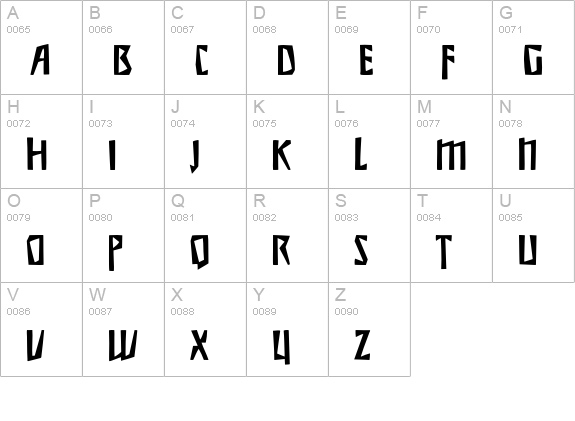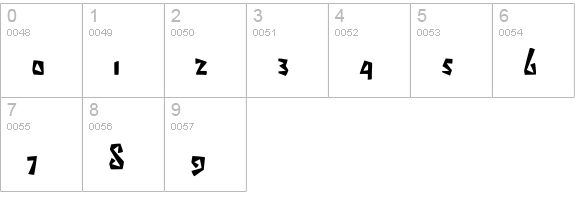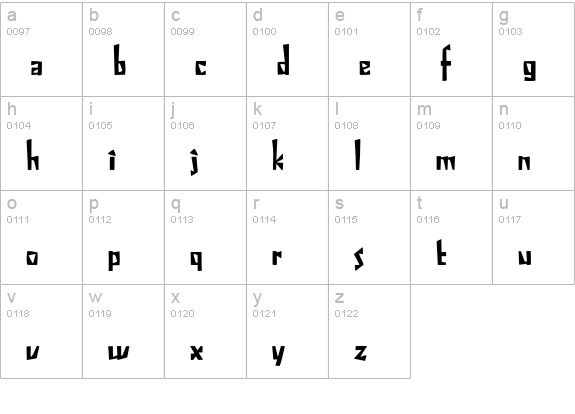
P22Preissig-Scrape is a captivating and distinctive font that exudes a sense of rawness and authenticity. Crafted with meticulous attention to detail, this font is inspired by the works of renowned Czech typographer Vojtěch Preissig. With its unique and rough texture, P22Preissig-Scrape adds a touch of vintage charm to any design project. Each character is meticulously hand-scraped, resulting in an uneven and imperfect appearance that is both visually appealing and captivating. This font is not only aesthetically pleasing but also versatile. Whether you're designing a logo, a poster, or a website, P22Preissig-Scrape will effortlessly elevate your design to new heights. Its bold and striking presence demands attention and leaves a lasting impression on anyone who encounters it. The best part? P22Preissig-Scrape is available for free! You can easily download this font at FontsMarket.com, where it is freely accessible to all design enthusiasts, professionals, and hobbyists alike. So why wait? Enhance your creative endeavors with the bold and unique P22Preissig-Scrape font today.